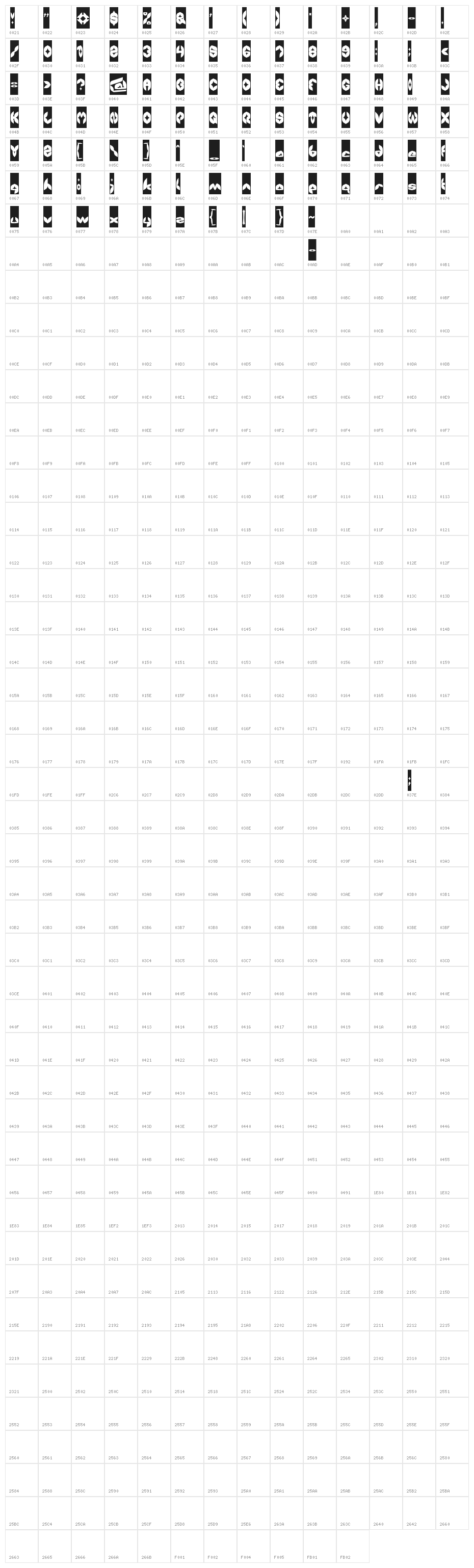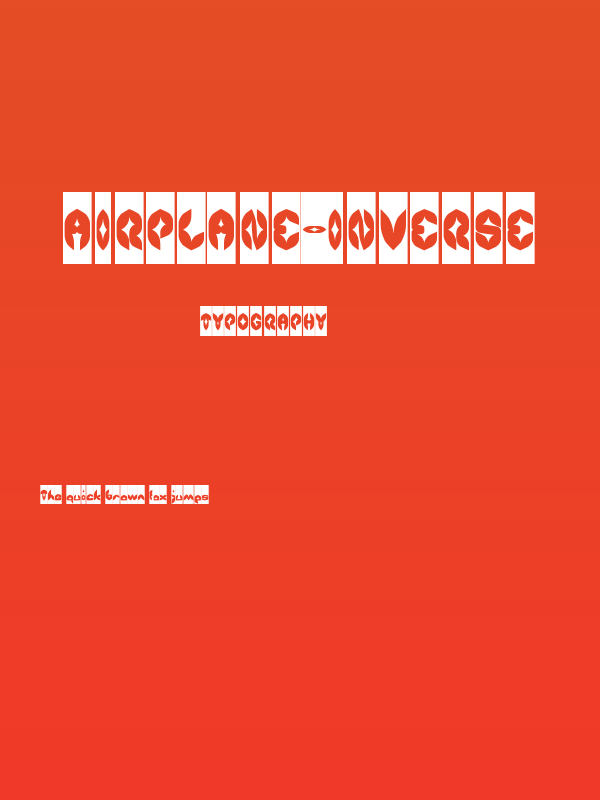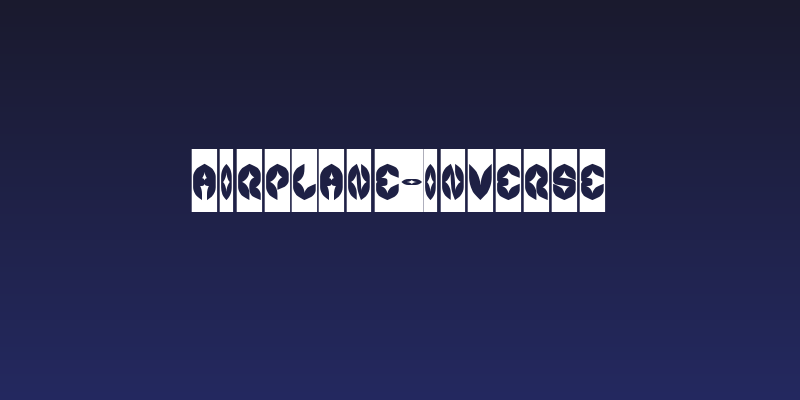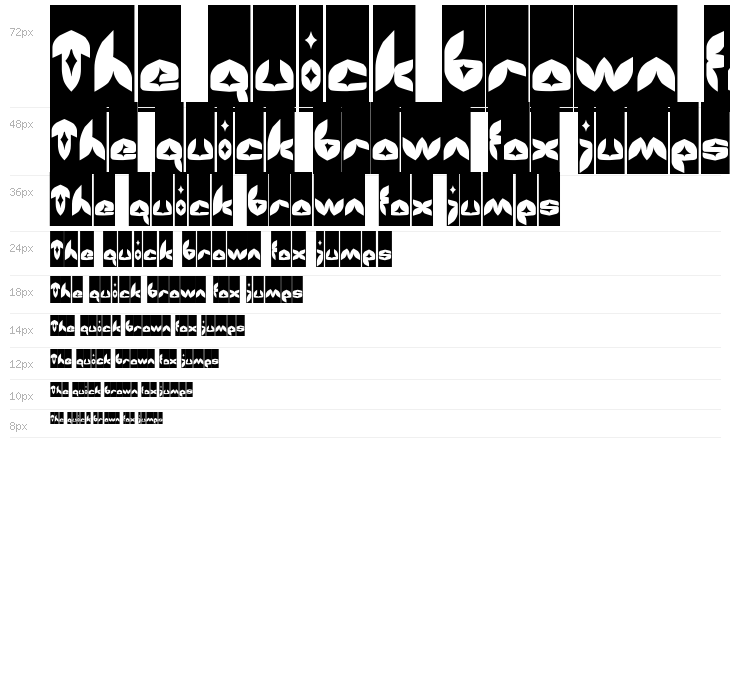
AIRPLANE-Inverse Font
AIRPLANE-Inverse Description
This font features a bold and striking design with sharp, angular edges and a futuristic aesthetic. Each character is crafted with a unique geometric style, creating a sense of movement and dynamism. The uppercase and lowercase letters maintain a consistent design language, while the numbers and special characters complement the overall look. The font's high contrast and distinct shapes make it ideal for attention-grabbing designs. Its bold presence is perfect for projects that require a modern and edgy feel, such as sci-fi themes, technology branding, or innovative product packaging.
| Overall Style | Futuristic, Modern |
| Proposed Projects | Ideal for sci-fi themes, technology branding, innovative product packaging, and modern posters. |